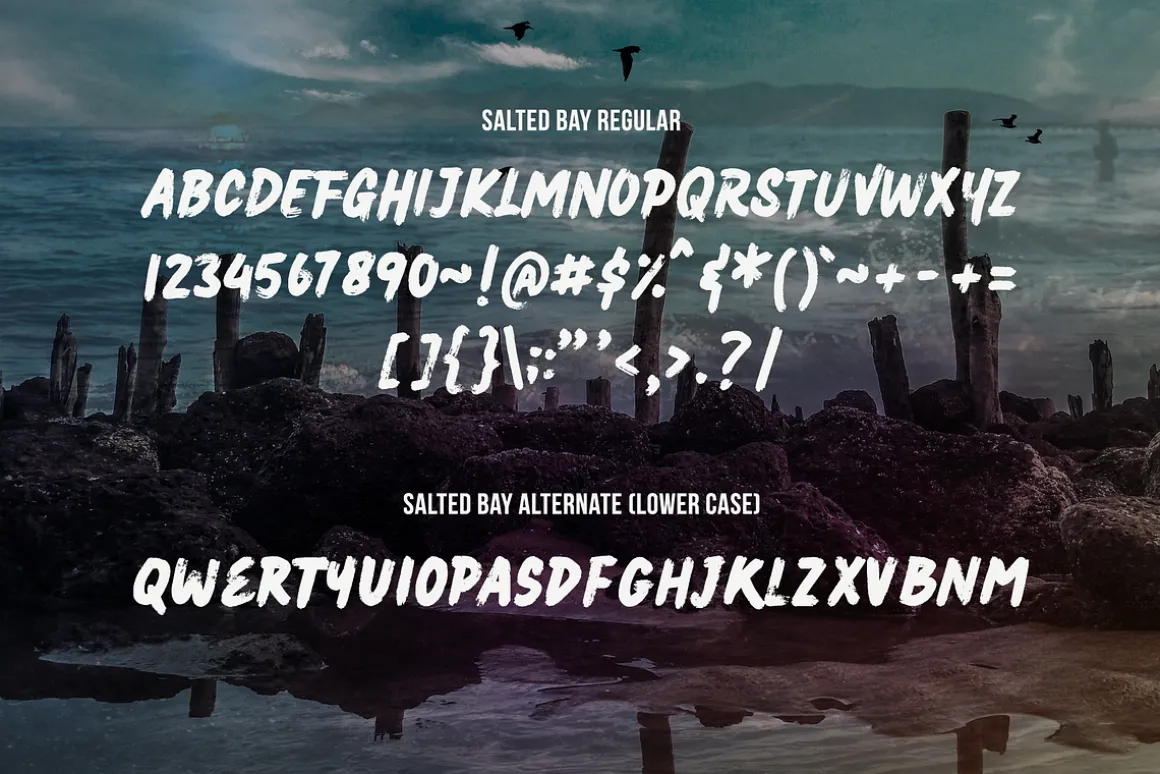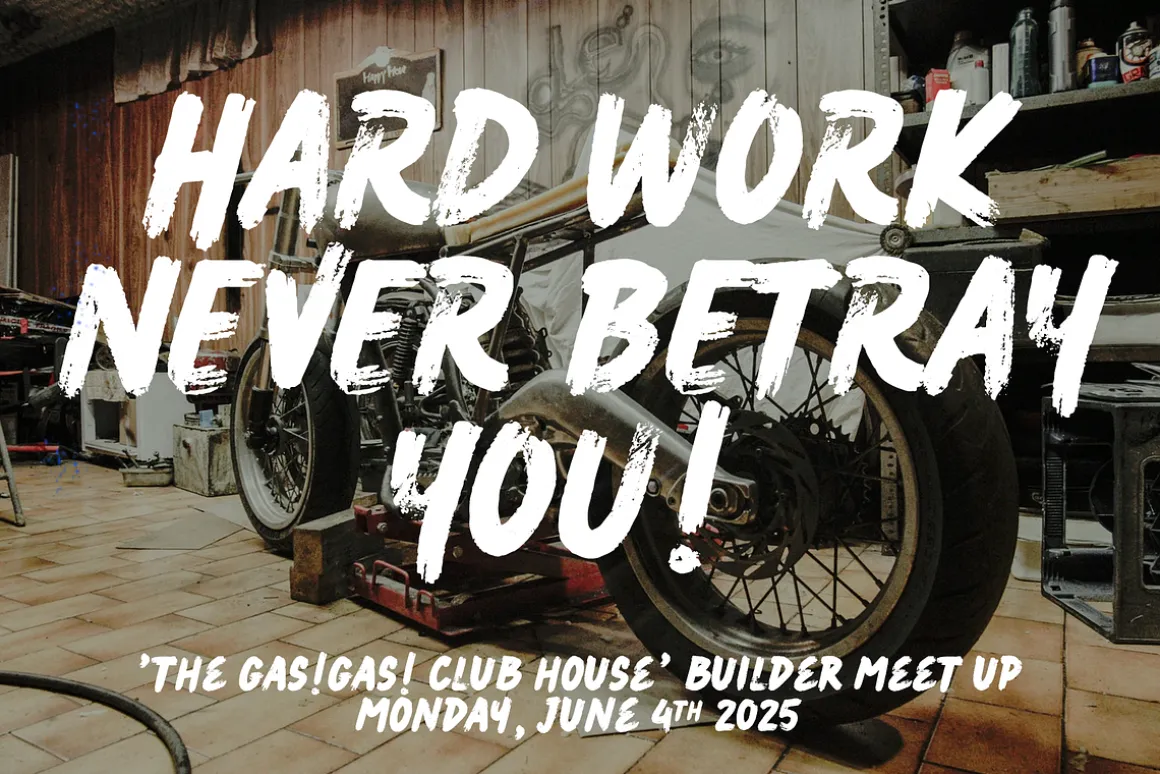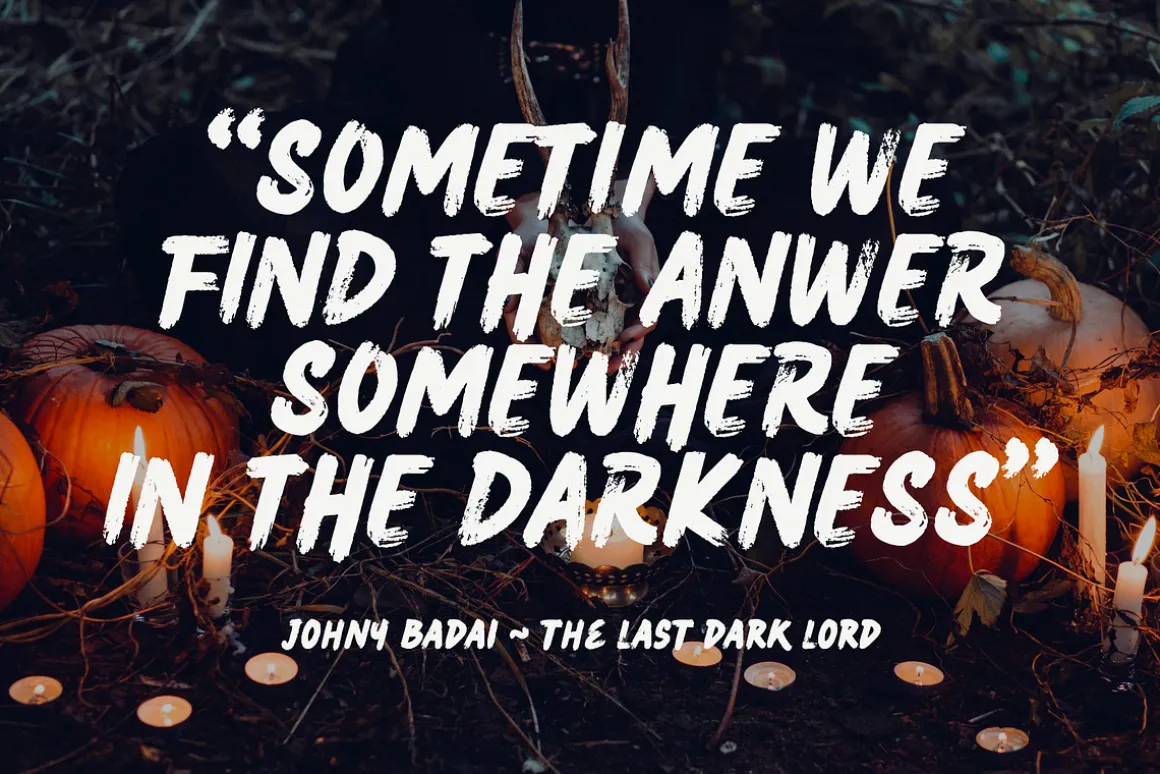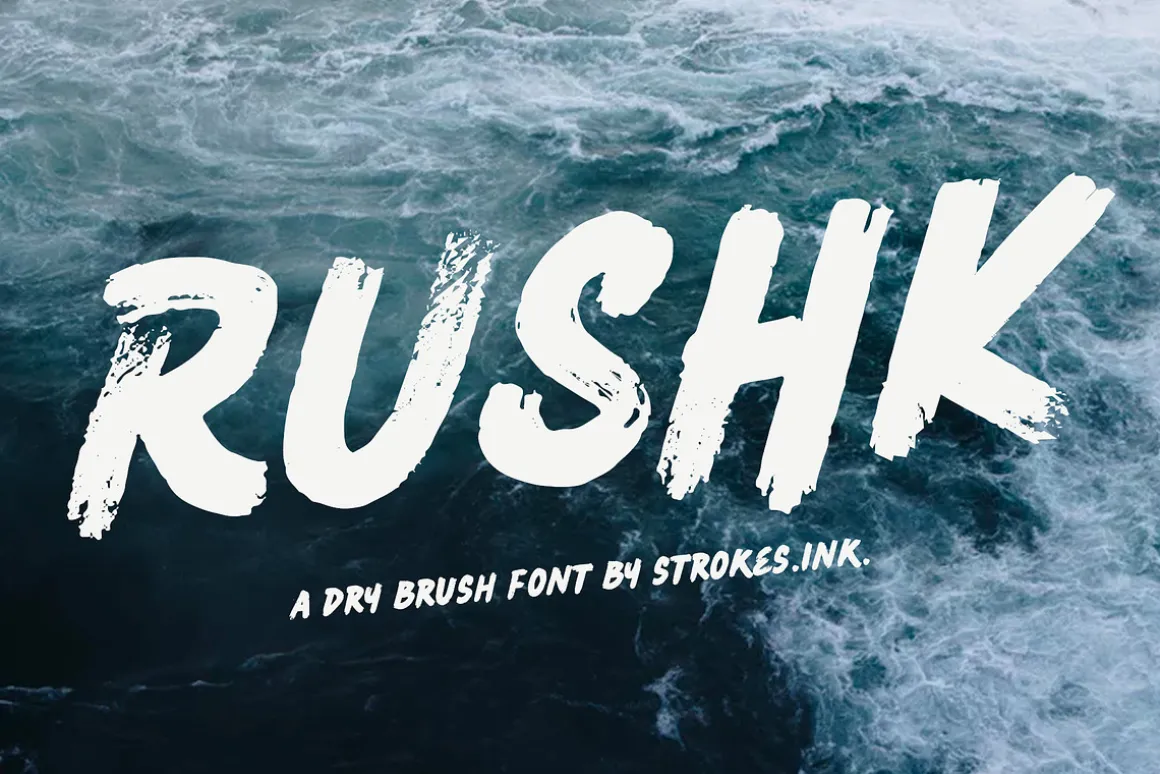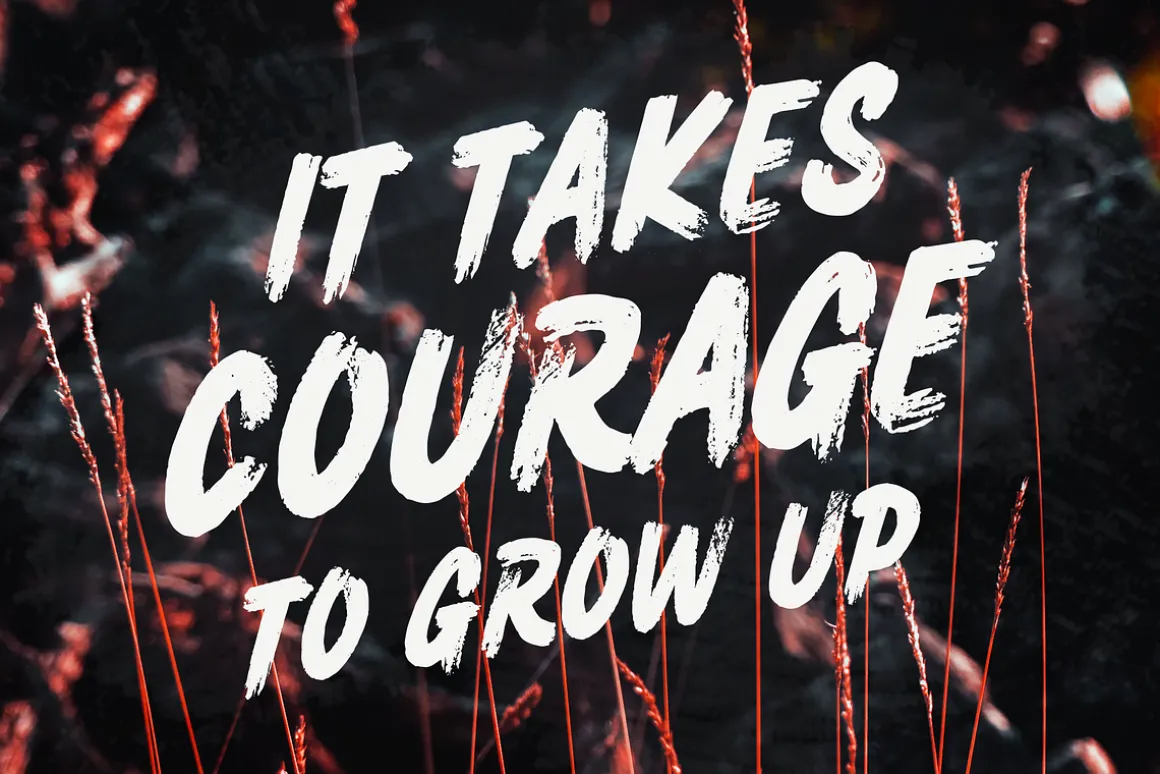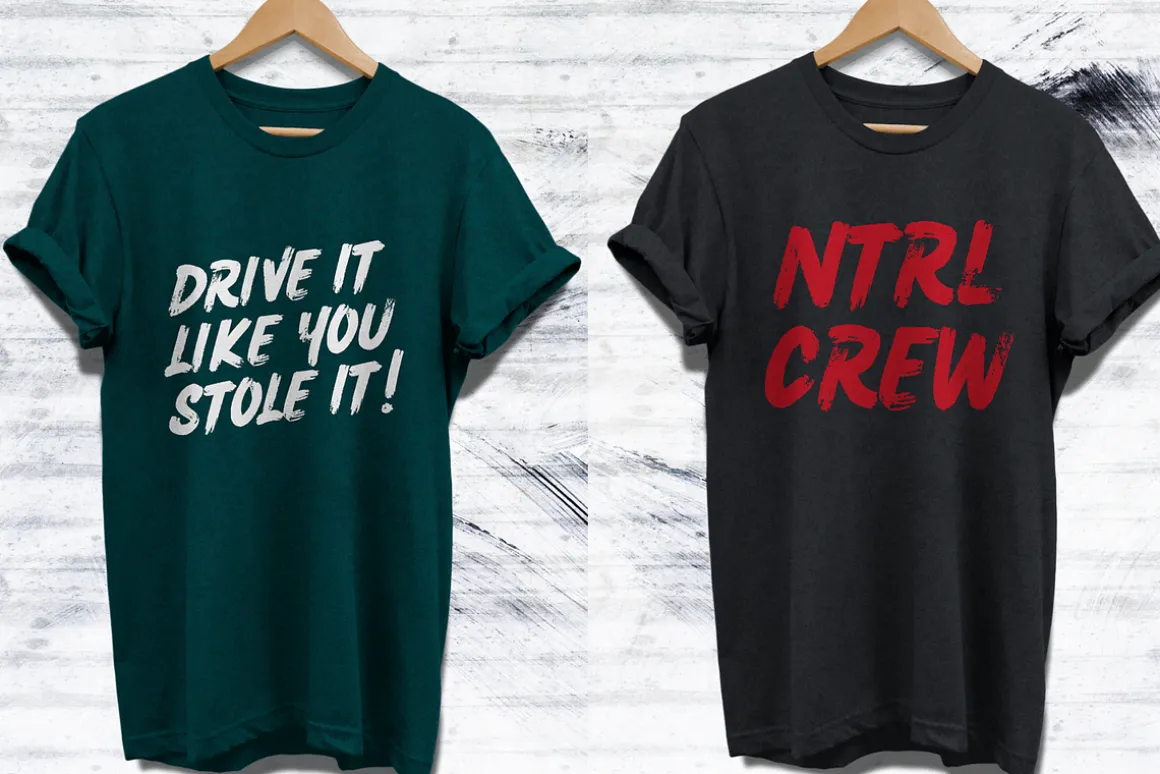
Introducing RUSHK, a unique display font from Strokes.ink. This handy sans serif includes a full character, numbers, punctuation & also alternate version. Perfect for big displays, titles, posters, marketing & advertising.
- Alternate glyphs for each lowercase letter
- Numbers & All major punctuation included